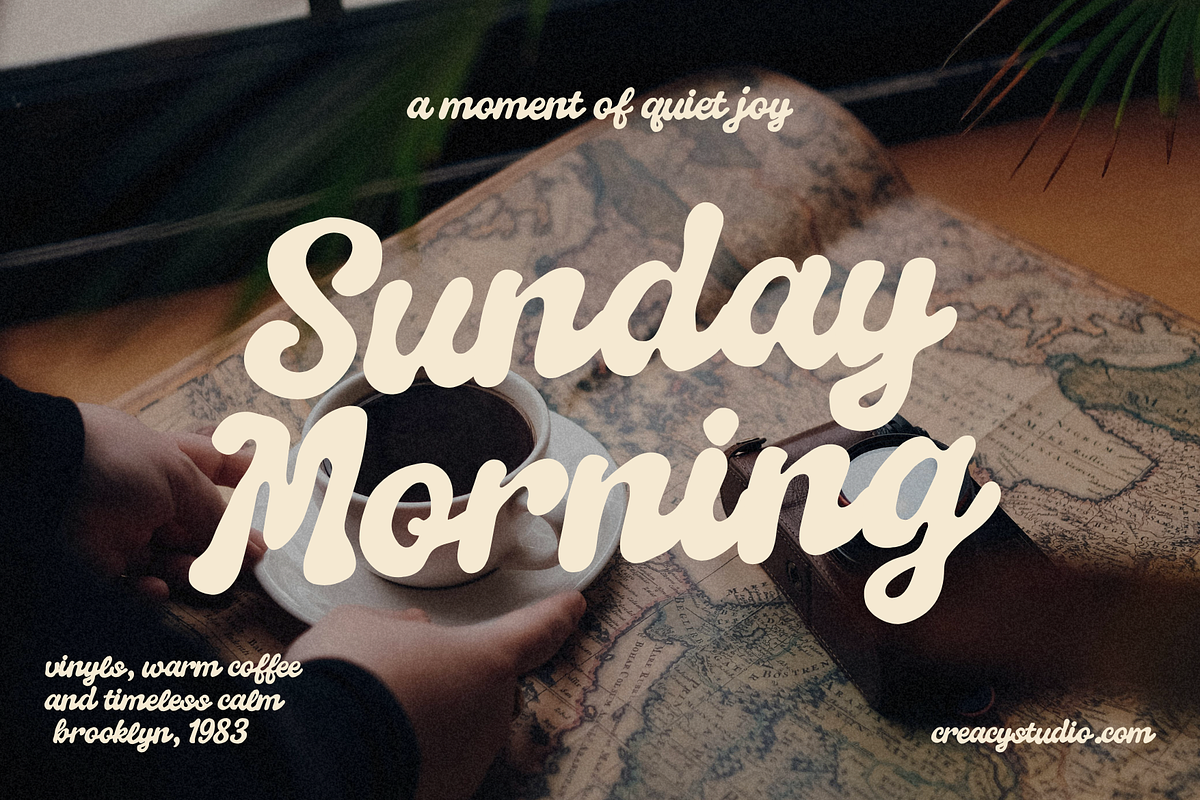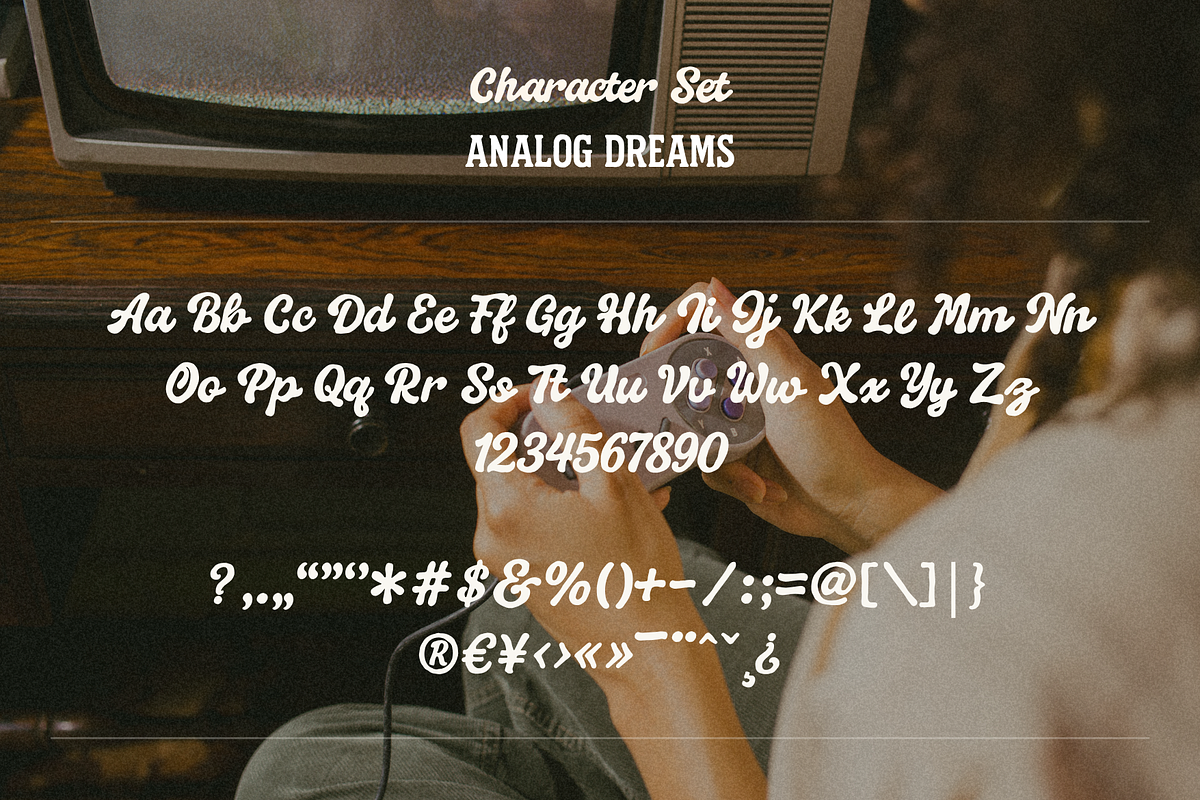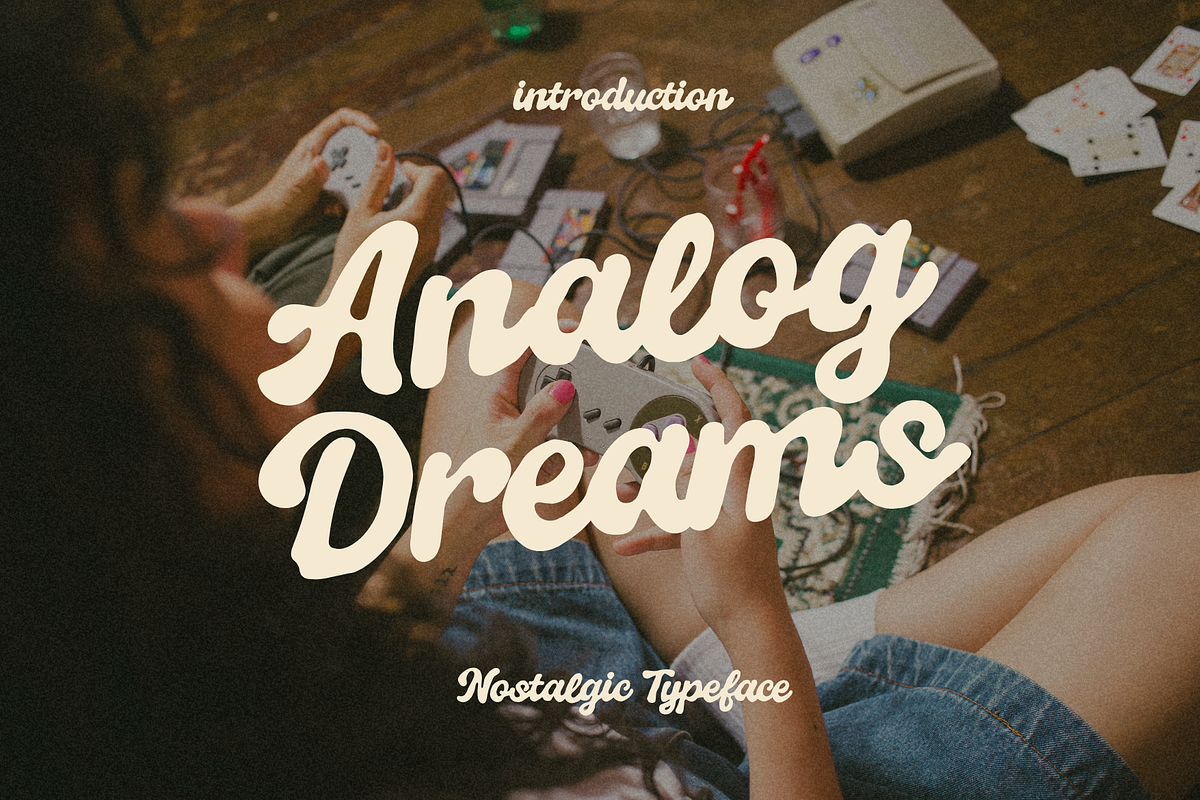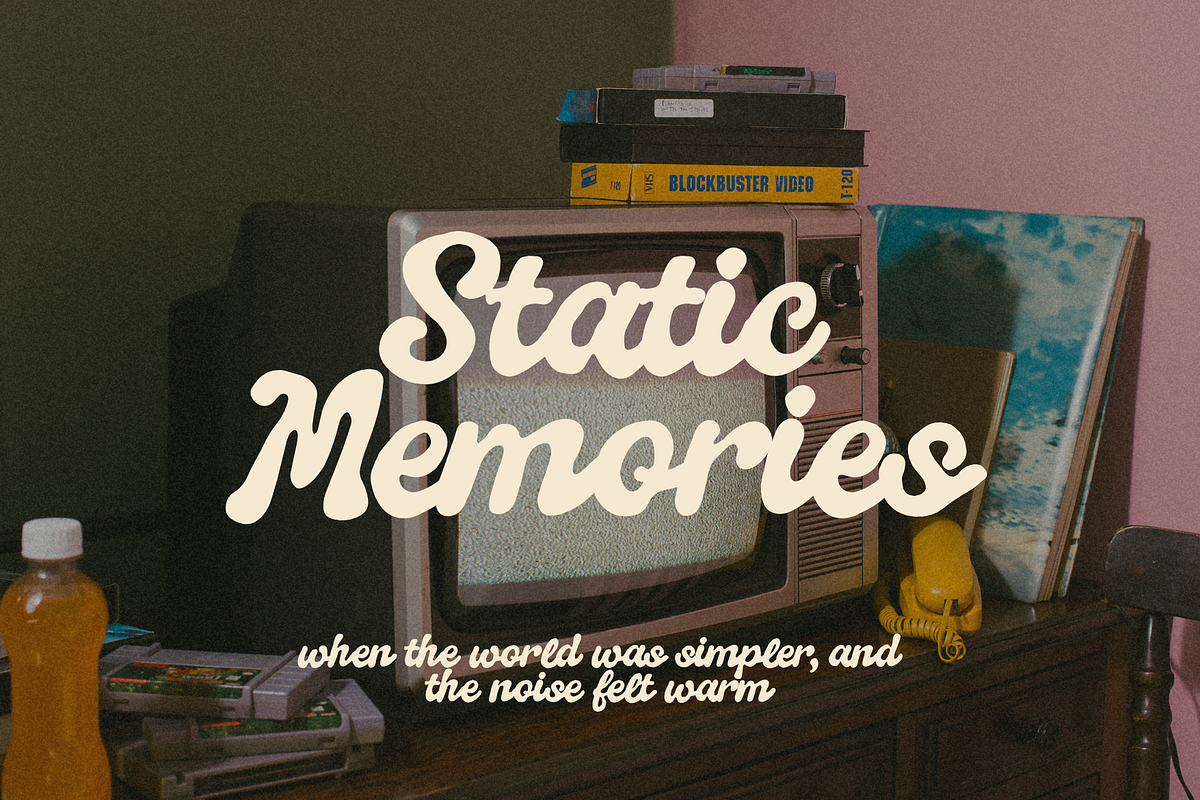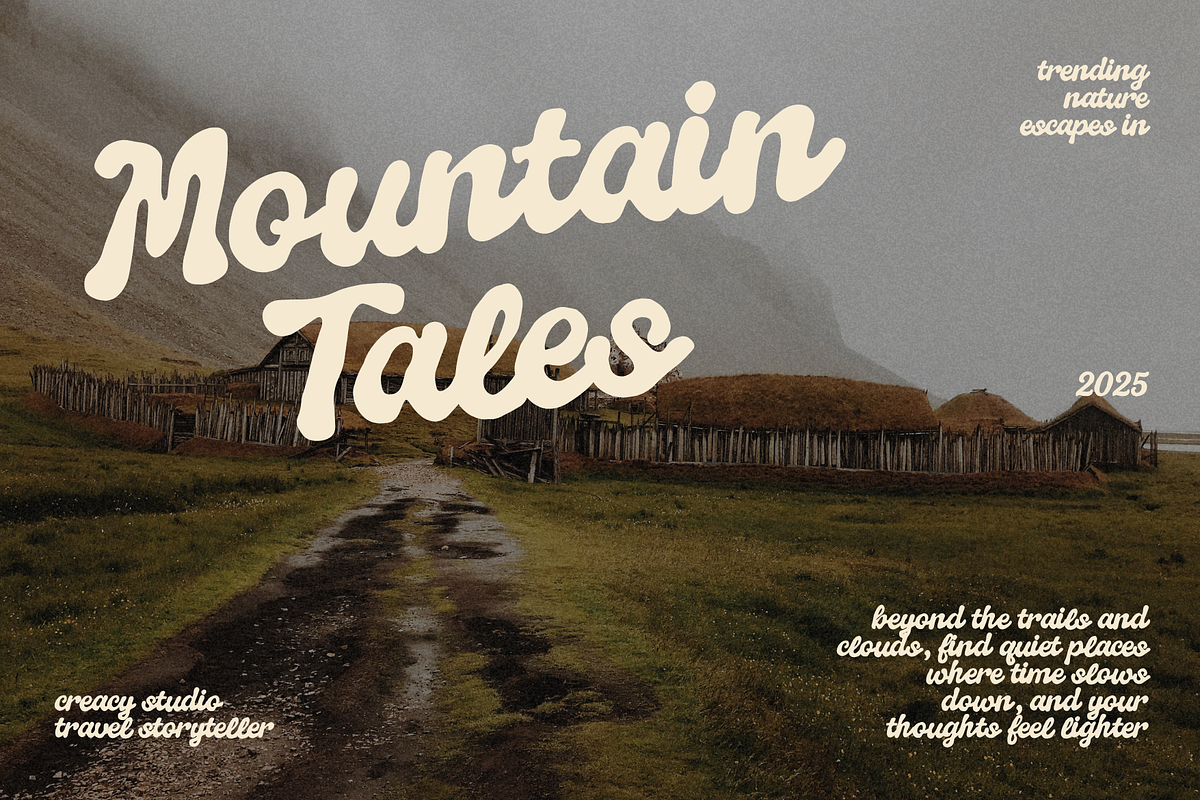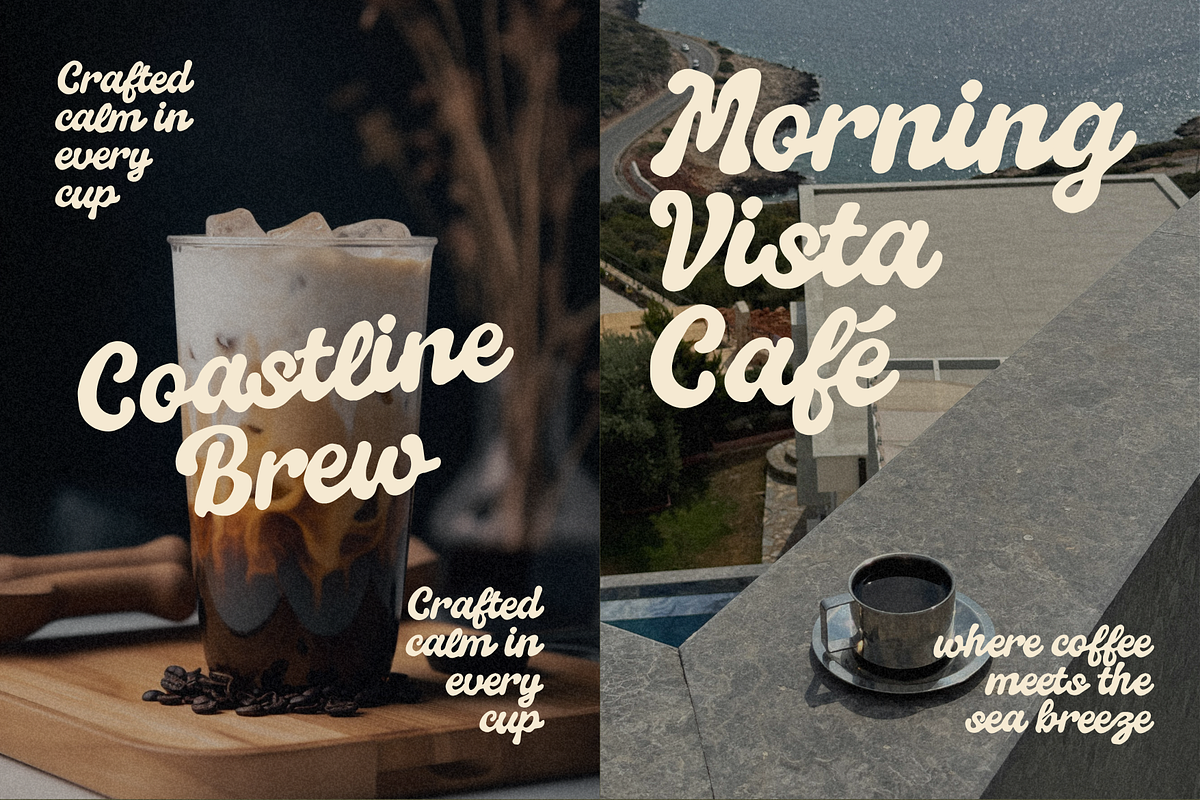
Analog Dreams – Retro Script
Analog Dreams – Nostalgic Script Font
Feel the warmth of analog days. Analog Dreams is a nostalgic retro script font inspired by vintage film tones, old TV glow, and slow weekend mornings. Its creamy curves and soft strokes bring a sense of calm, familiarity, and quiet joy — perfect for capturing timeless emotions in your design.
Whether you’re creating a retro café logo, lifestyle branding, or a dreamy poster series, Analog Dreams adds that warm, human touch that makes your project feel alive and personal.
Perfect For: Branding, packaging, café menus, posters, travel journals, vintage logos, quotes, and social media posts.
Bring your stories to life with the soft, nostalgic charm of Analog Dreams.